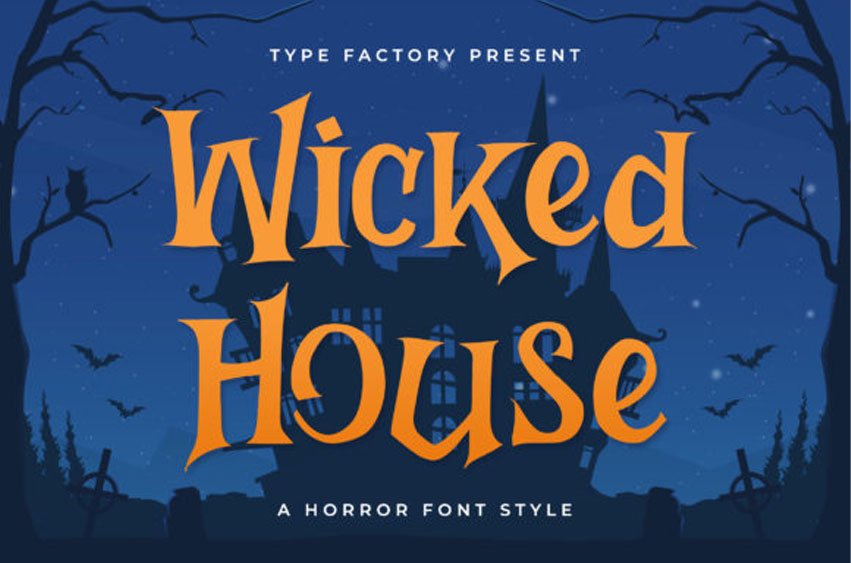
Wicked House Font is a fun, scary, and amazing display font that will add a unique and stunning look to your designs.
It is perfect for fun fantasy games, children’s horror storybooks, logos, branding, advertising, Halloween projects, gothic designs, apparel, tattoos, and more!